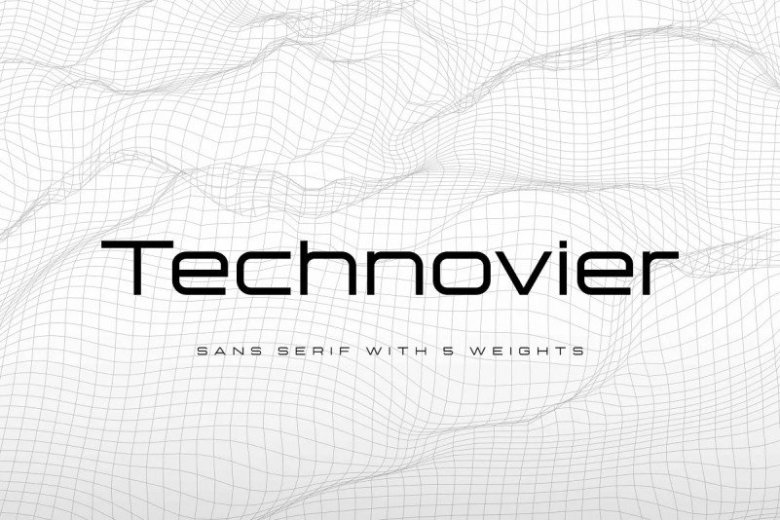
Technovier Font
Technovier Font is a modern and strong sans serif. It’s a very versatile font that works great in large and small sizes. Technovier has 5 Fonts that allow you to get a job with satisfying results. very suitable for posters, t-shirt, packaging, branding, logotype and more.
This font with strong and challenging nuances. very suitable for the title, typography, clothes, Poster, magazines, brochures, packaging,Websites and much more for your design needs, making your designs more modern and professional.